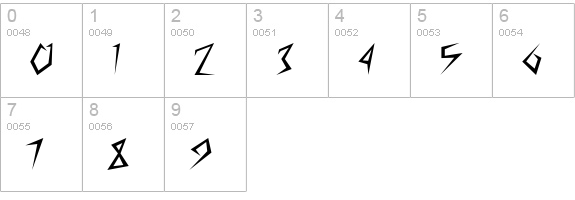
MunsyFont Font Details
MunsyFont is a versatile and stylish font that is sure to make your designs stand out. With its modern and sleek look, this font is perfect for a wide range of projects, from branding to marketing materials. The clean lines and sharp edges of MunsyFont give it a sophisticated and professional appearance, making it ideal for both digital and print applications. And the best part? MunsyFont is completely free to download at FontsMarket.com, so you can start using it in your projects right away without breaking the bank. Don't miss out on this fantastic font - download MunsyFont today and take your designs to the next level!